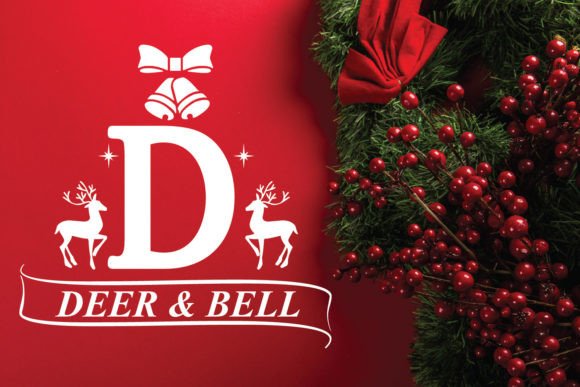
Introducing Deer Bell Font - Your Gateway to Designing Enchanting and Unique Artwork
In the world of design, a distinctive and eye-catching font holds the power to transform words into captivating art. Presenting Deer Bell Font, a decorative typeface that exudes charm and joy, offering a festive flair to your creative endeavors. With its delicate strokes and remarkable details, Deer Bell Font is the ultimate choice for designers seeking a font that captures the essence of Christmas and adds a touch of whimsy to their projects.
Embrace the Magic of Christmas with Deer Bell Font
Step into a winter wonderland with Deer Bell Font, meticulously crafted to evoke the enchanting spirit of Christmas. Its festive appeal makes it the perfect companion for designing Christmas cards, invitations, posters, or any holiday-themed project. Let Deer Bell Font transport your designs to a realm of joy, evoking feelings of warmth, love, and celebration.
Unleash Your Creativity with Endless Possibilities
Embrace the versatility of Deer Bell Font, designed to complement a wide range of projects beyond Christmas-themed designs. Its charming nature lends itself beautifully to creating logos, branding, apparel designs, and even website headers. Allow Deer Bell Font to infuse your creations with a dose of uniqueness, making them stand out from the crowd.
A Touch of Charm for Your Handcrafted Projects
Embark on a crafting journey with Deer Bell Font, effortlessly adding a touch of enchantment to your handmade creations. Picture Christmas ornaments, farmhouse decor, and personalized gifts adorned with Deer Bell's delicate strokes. Let your creativity shine as you transform ordinary items into extraordinary keepsakes that will be treasured for years to come.
Effortless Pairing for Seamless Designs
Deer Bell Font possesses an innate ability to blend seamlessly with other fonts, making it an ideal choice for layered designs. Its delicate lines complement a variety of styles, allowing for harmonious combinations that create a visually stunning impact. Experiment with different pairings to discover the perfect harmony that will elevate your designs to new heights.